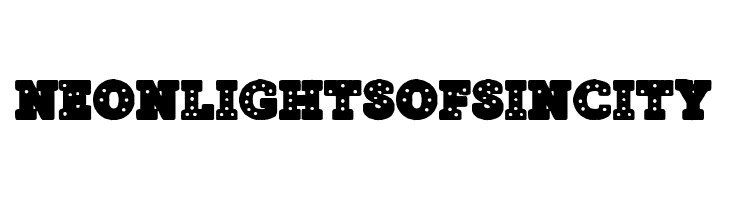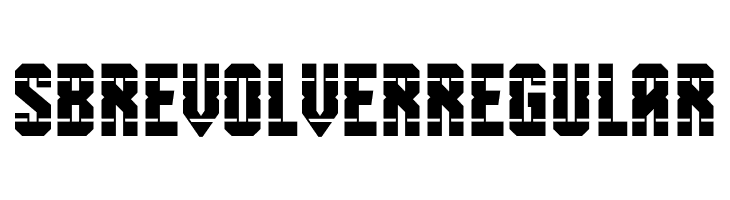
A modern, geometric font with clean lines and rounded corners, ideal for technical and futuristic designs.
A modern, geometric font with clean lines and a futuristic style.
A bold, extra-condensed slab serif font with minimal contrast and strong vertical emphasis.
A bold, extra-condensed slab serif font with high contrast and a commanding presence.
A modern, geometric sans-serif font with a sleek and minimalistic design.
A modern, semi-bold font with clean lines and rounded edges.
A sleek, modern, light italic font with medium contrast and condensed spacing.
A modern, semi-bold italic font with a sleek and compact design.
A bold, angular font with a dynamic, forward-leaning design.
A bold, italicized font with angular lines and a dynamic, modern style.
A bold slab serif font with strong, block-like characters and wide spacing.
A modern, clean font with tall, narrow uppercase letters and consistent lowercase design.
A bold slab serif font with high contrast and wide spacing, perfect for impactful designs.
A modern, light, italic sans-serif font with a sleek and condensed design.
A modern, light sans-serif font with clean lines and excellent readability.
A bold, modern font with clean lines and strong visual impact.
A bold, italicized font with a modern and dynamic style.
A modern icon font featuring a variety of symbols and ligatures within square backgrounds.
A bold, geometric font with a modern and striking design.
A bold, geometric font with a modern and impactful style.
An elegant script font with flowing cursive letters and intricate swashes.
A flowing, cursive font with elegant, sweeping strokes.
Bold, expressive designs combining typography with illustrative elements for a dynamic, rebellious aesthetic.
A playful, handwritten-style font with a whimsical and friendly appearance.
A playful, handwritten font with elongated, whimsical characters.
A playful, bubbly font with rounded, consistent characters.
A bold, dripping font with a grungy, hand-drawn style.
A playful, bold font with rounded edges and a bubbly appearance.
A modern, angular font with a dynamic slant and sharp lines.